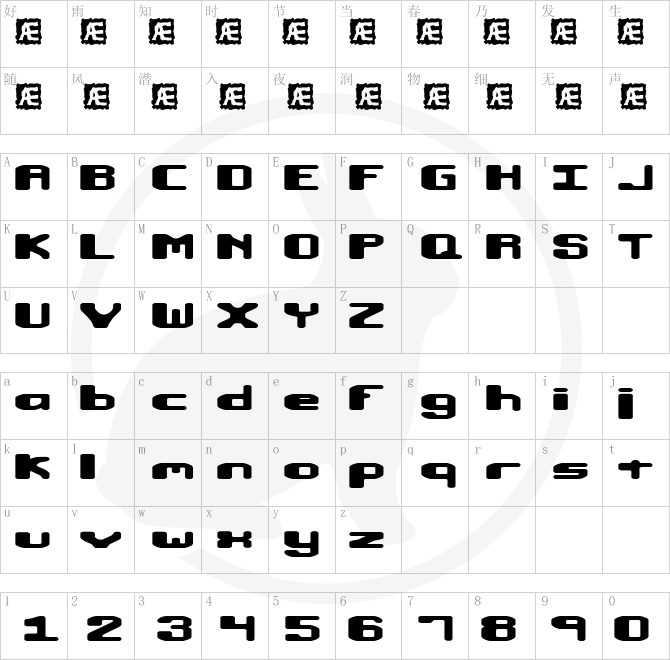
- Font Name:Macropsia BRK
- Full Name:Macropsia BRK
Macropsia-BRK.ttf is a very beautiful artistic font, Macropsia-BRK.ttf is widely used in the design and printing of various books and pictures,Macropsia-BRK.ttf has a strong visual impact,Macropsia-BRK.ttf is a commonly used font in newspapers, magazines and books, and is used in posters, e-commerce Poster design, store design, logo design, font design and other fields.Macropsia-BRK.